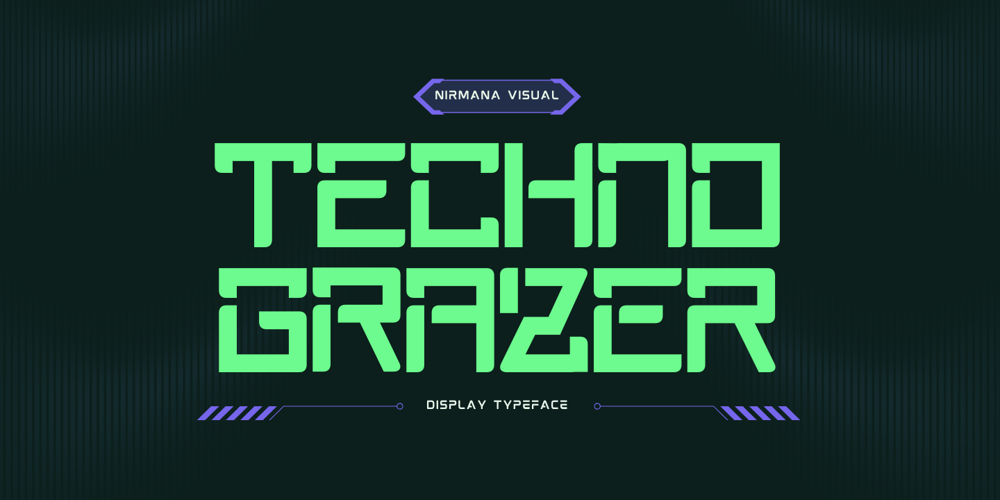
Techno Grazer Font Family was designed by Sigit Dwipa and published by Nirmana Visual. Techno Grazer contains 1 styles and family package options. Techno Grazer Font offers beautiful typographic harmony for a diversity of design projects, including logos & branding, social media posts, advertisements & product designs.